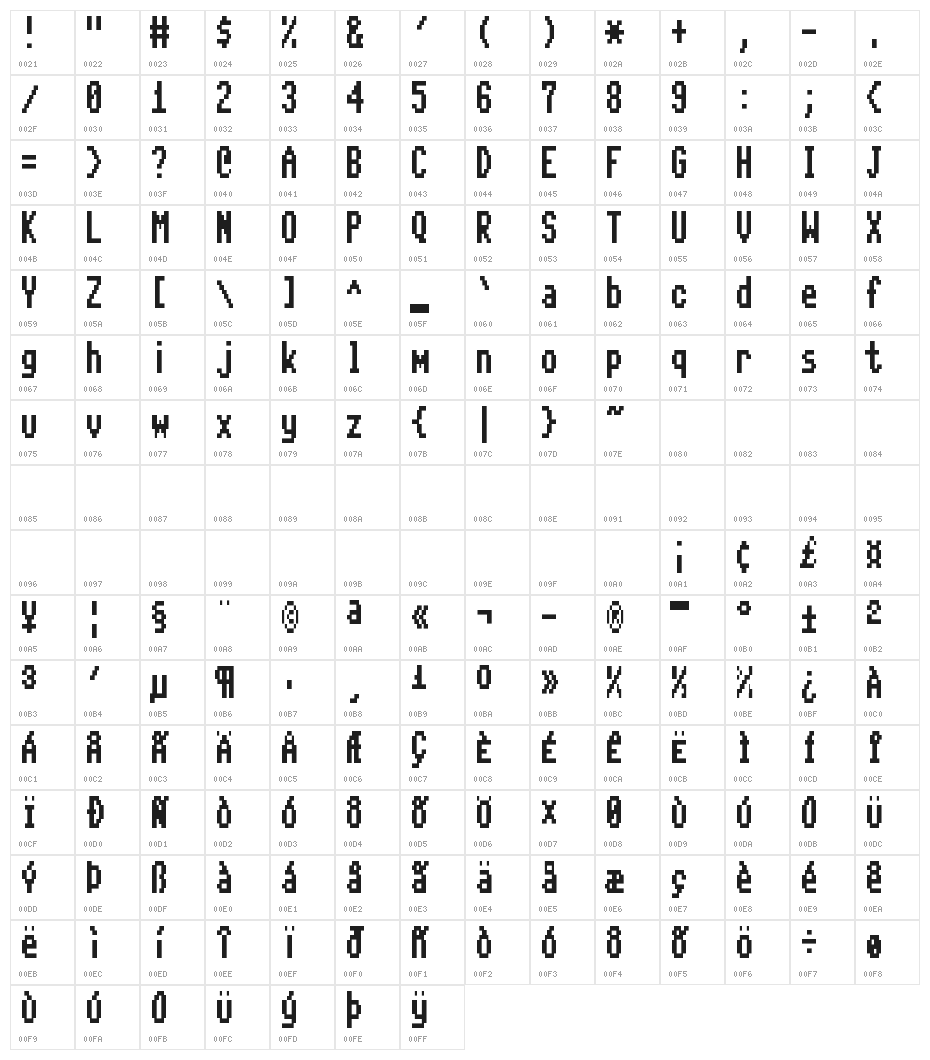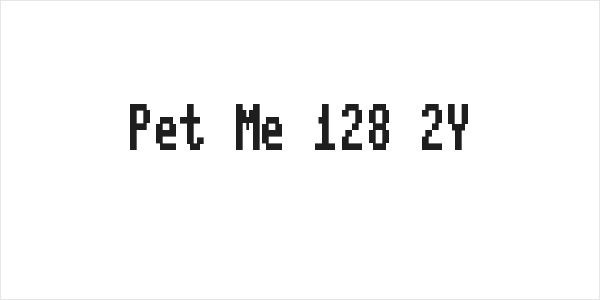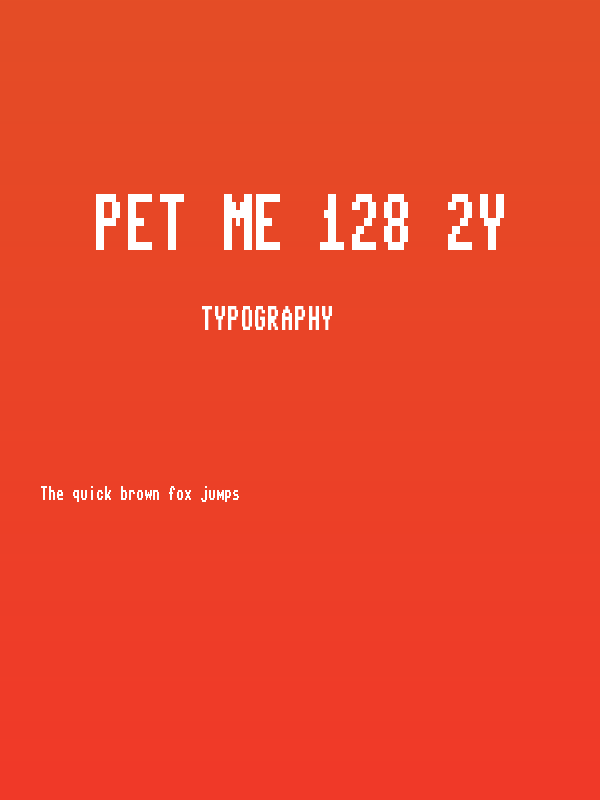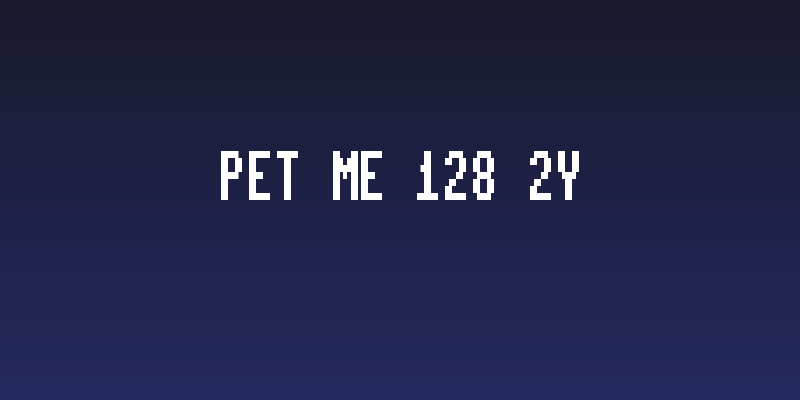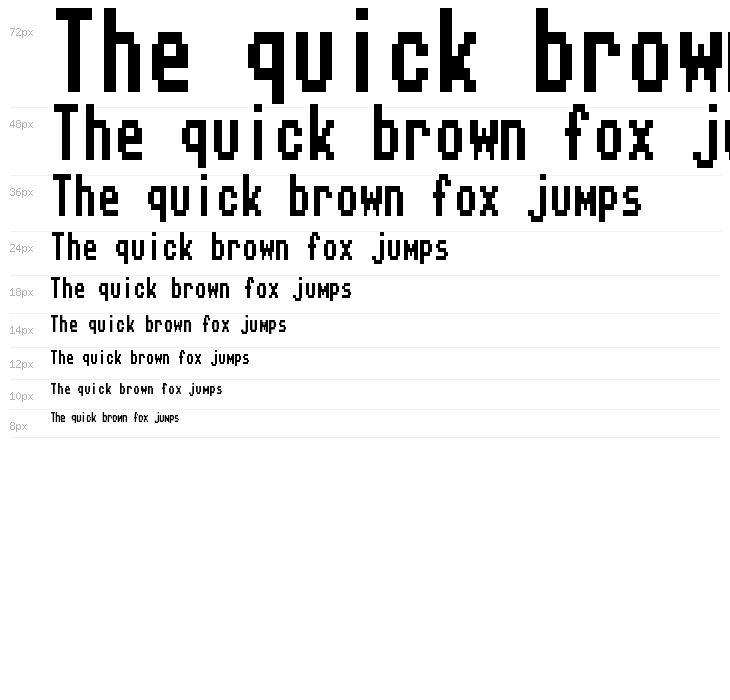
Pet Me 128 2Y Font
Pet Me 128 2Y Description
This font features a pixelated, blocky design reminiscent of early digital or arcade-style typefaces. Each character is composed of distinct square pixels, giving it a retro and digital aesthetic. The uppercase and lowercase letters maintain a consistent height, with the lowercase slightly smaller but equally bold. Numbers and special characters follow the same pixelated style, ensuring uniformity across the font. The design is straightforward, with no curves or embellishments, emphasizing a minimalist and functional approach. This style is ideal for projects that aim to evoke nostalgia or a vintage digital feel.
| Overall Style | Vintage, Digital |
| Use Case | Headlines, Logos, Digital displays |
| Proposed Projects | Ideal for video game design, retro-themed posters, digital art projects, or any creative work that seeks to capture a vintage digital aesthetic. |